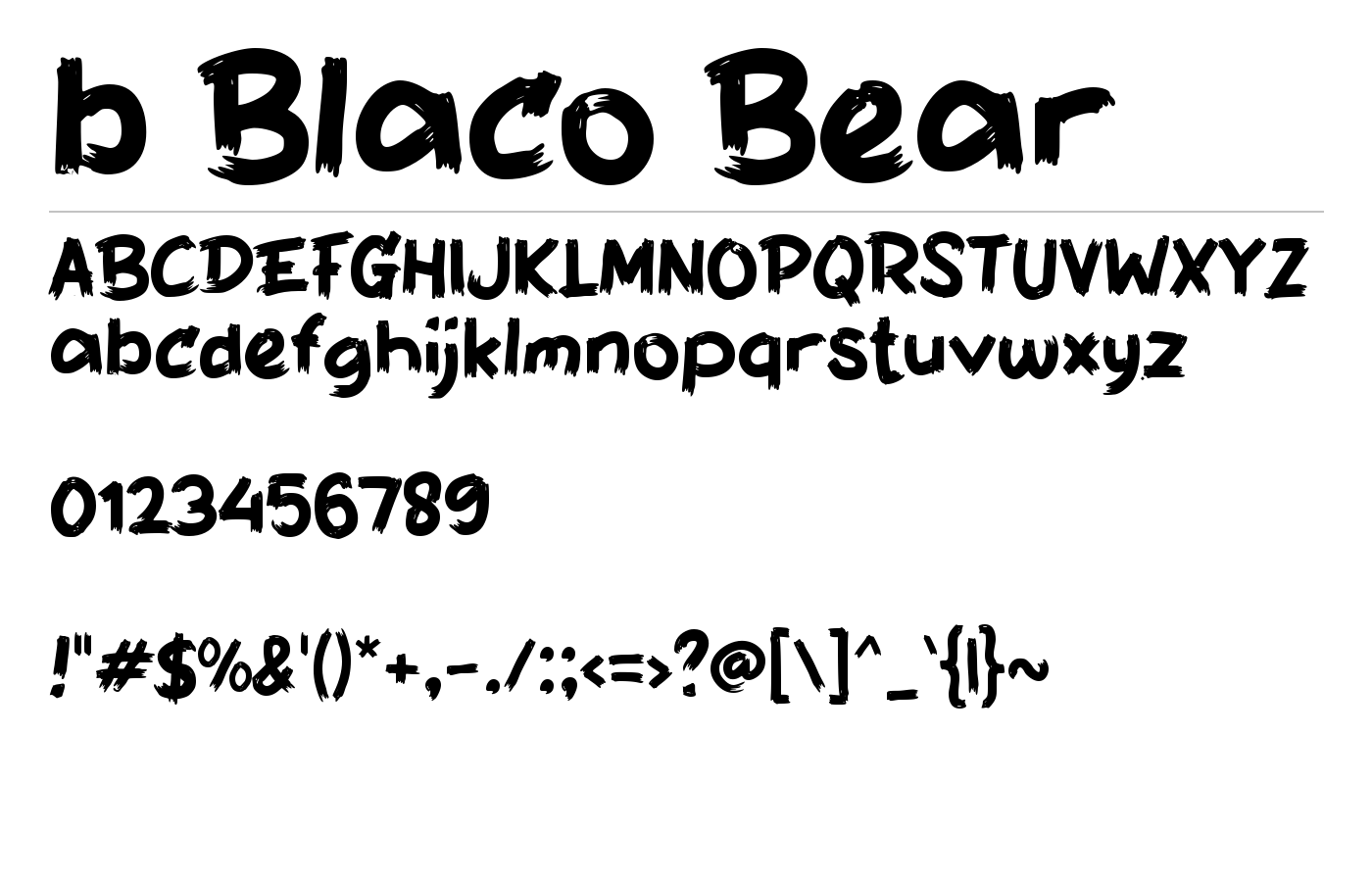
Blaco Bear is a bold, playful sans serif font with a hand-painted, brushstroke texture that adds a lively and informal vibe to any design. Its chunky letterforms with irregular edges create a fun, energetic personality perfect for casual branding, posters, and creative projects where a dynamic, approachable look is desired. This font works best for headlines and display use, bringing a fresh, artistic feel that stands out with charm and character.
b Blaco Bear Font
About b Blaco Bear Font